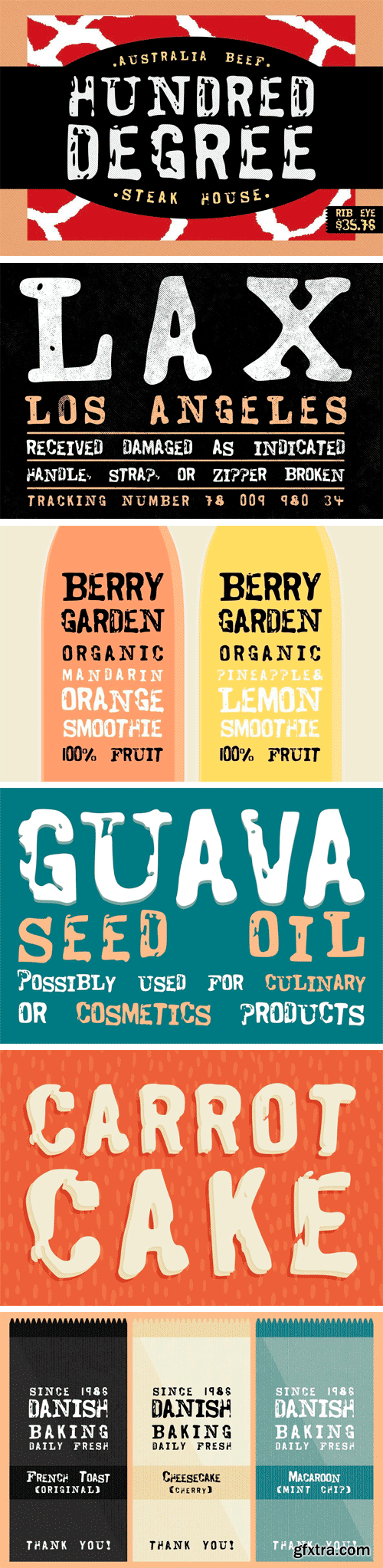
Rough Tough Font
This font was created using various rubber stamps, scanning them and then distorting them in Adobe Photo Shop. This font was made with old, ripped display posters in mind. In our opinion the rougher the better! With a turn of the century print work shop thrown into the mix, it gives this collection a authentic and unique look. The distorted and effected look of the upper case type give it a rather aggressive feel. With numbers and some symbols this font collection would be great for a stamp effect, steam punk or vintage feel to your design.